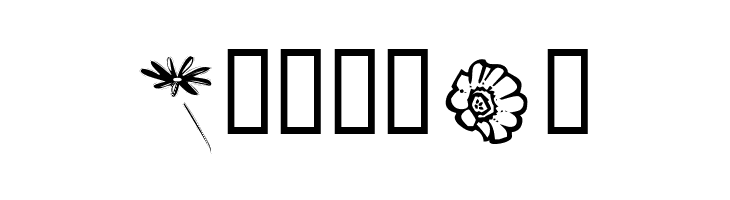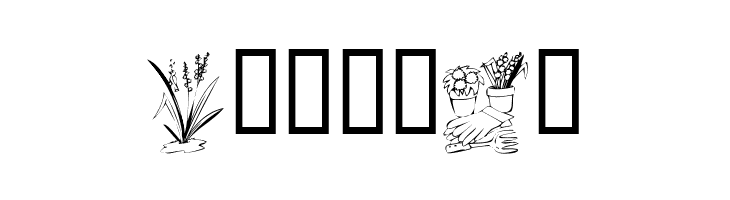
A monospaced font with uniform character width and minimal stroke contrast, ideal for coding.
A bold, monospaced font with uniform stroke width and rounded edges, ideal for technical use.
A bold, oblique, monospaced font with a modern and clean design.
A monospaced, oblique font with consistent stroke weight and clear readability.
A clean, modern sans-serif font with balanced proportions and excellent readability.
A bold, modern sans-serif font with clean lines and uniform width.
A bold, oblique font with a modern and dynamic style.
A modern sans-serif font with an oblique slant and medium contrast.
A playful, handwritten font with a bold and whimsical style.
A classic serif typeface with elegant, traditional letterforms and moderate stroke contrast.
A bold, classic serif font with strong, authoritative characters.
A bold, italic serif font with a classic and elegant style.
An elegant serif font with an italic slant, offering a classic and sophisticated look.
A bold, jagged font with an icy, dynamic appearance.
A bold, jagged font with an icy, distressed appearance.
A bold, playful font with a dotted texture and cartoonish style.
A decorative, pattern-filled font with a playful and artistic style.
A playful, hand-drawn font with irregular strokes and a lively appearance.
A decorative and artistic font with intricate patterns and bold designs.
A playful handwritten font with irregular strokes and a casual style.
A playful, decorative font with leaf accents and a whimsical script style.
A dynamic, hand-drawn font with sharp, angular strokes and a sketch-like texture.
A bold, italicized font with sharp angles and a dynamic, modern style.
A playful, whimsical font with decorative shapes and symbols.
A playful, frog-themed font with whimsical, hand-drawn characters.
Hand-drawn floral illustrations replace standard characters in this decorative set.
A whimsical, decorative font featuring abstract, cartoon-like faces and figures.
A playful, bold font with rounded, bubbly characters and a whimsical style.
A decorative serif font with elegant swirls and bold characters.
A pixelated, grid-based font with a retro digital aesthetic.
A playful, blocky font with a digital, pixel-art style.